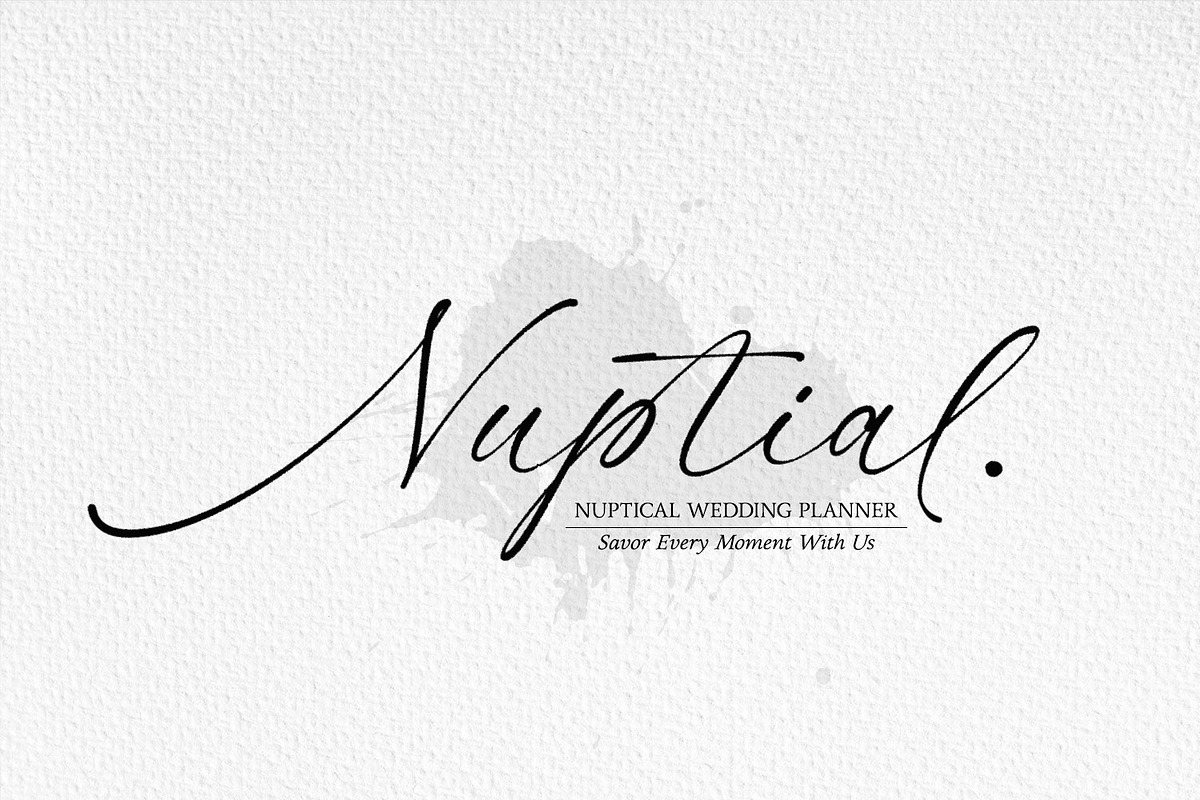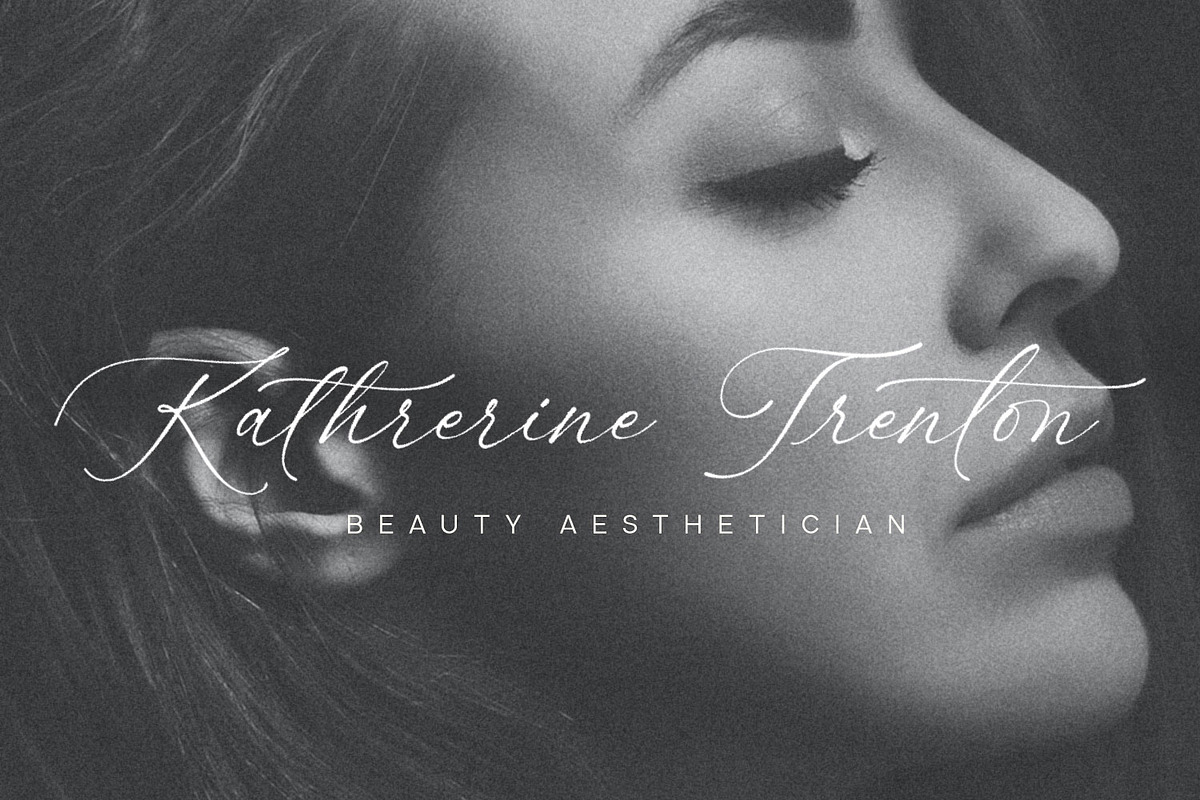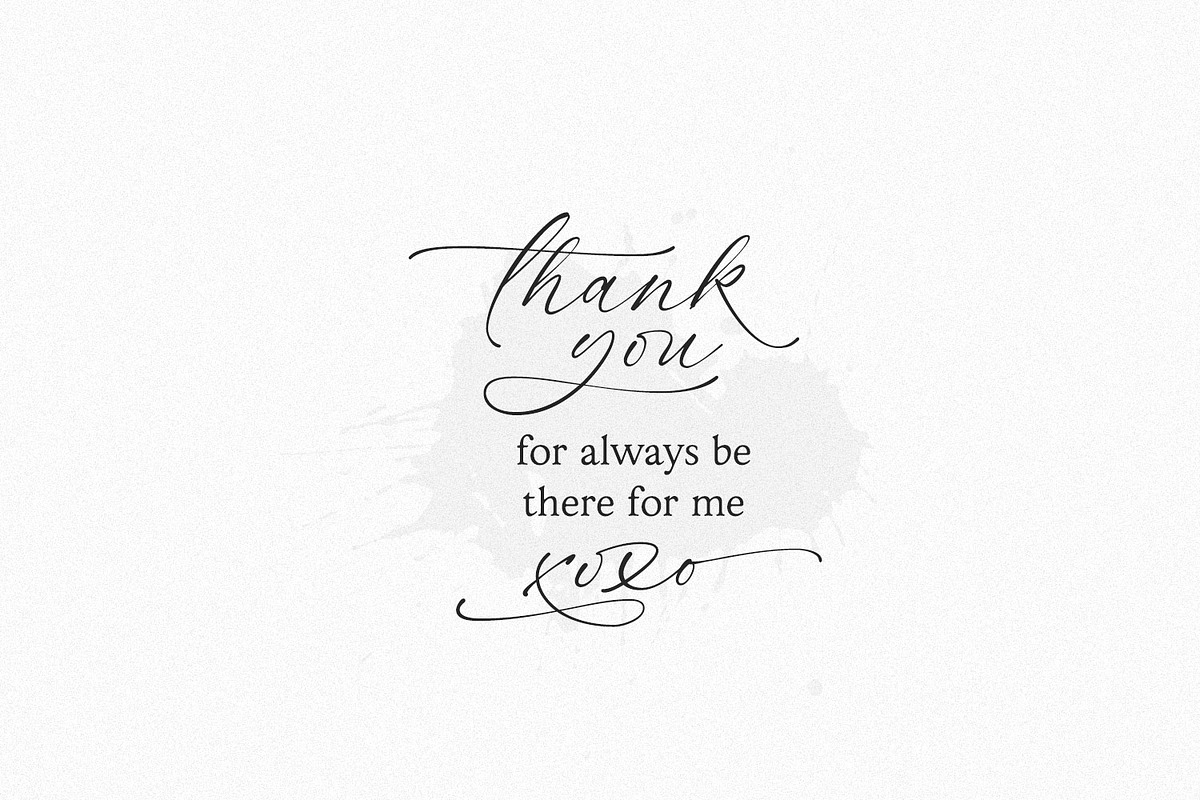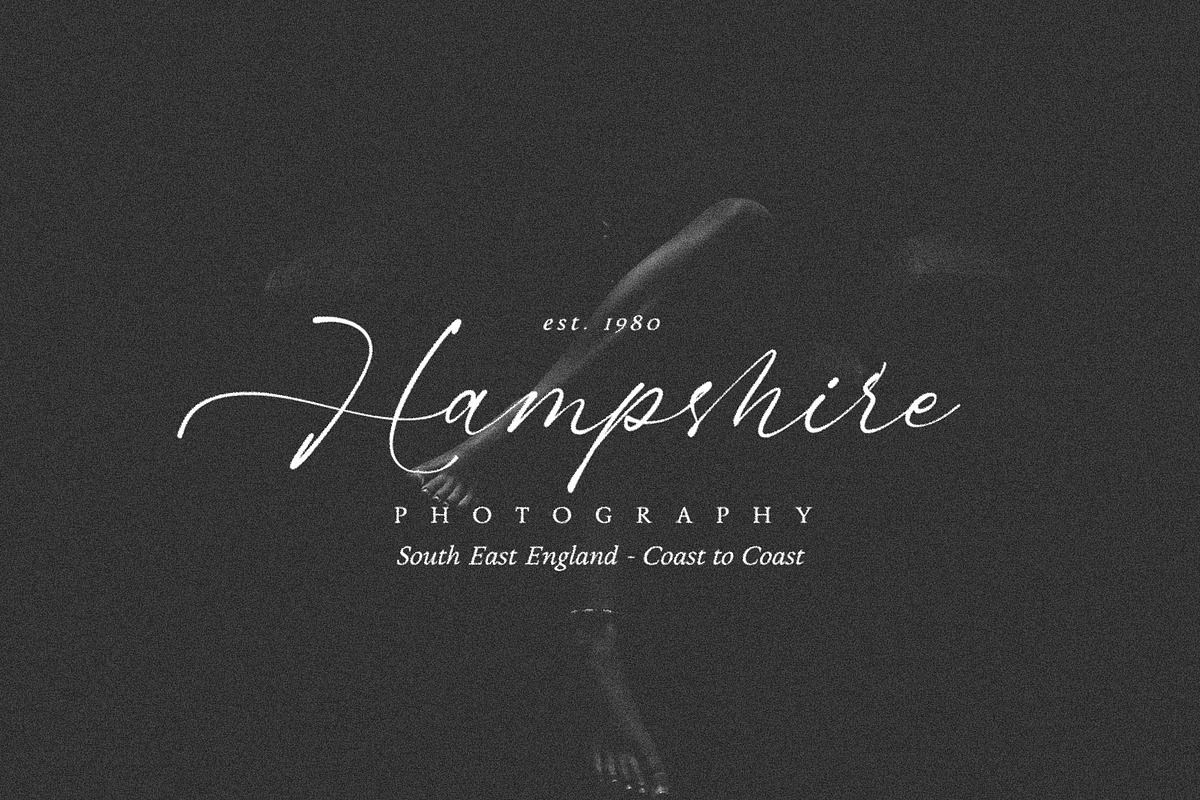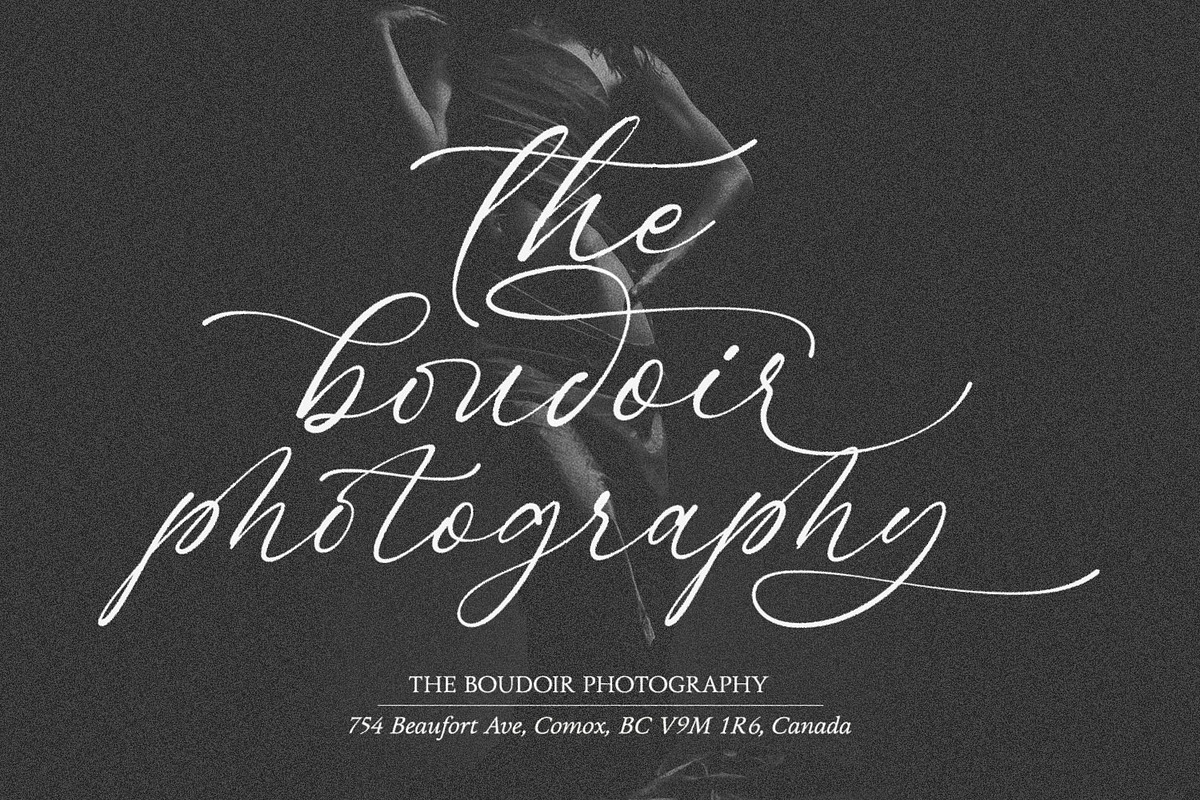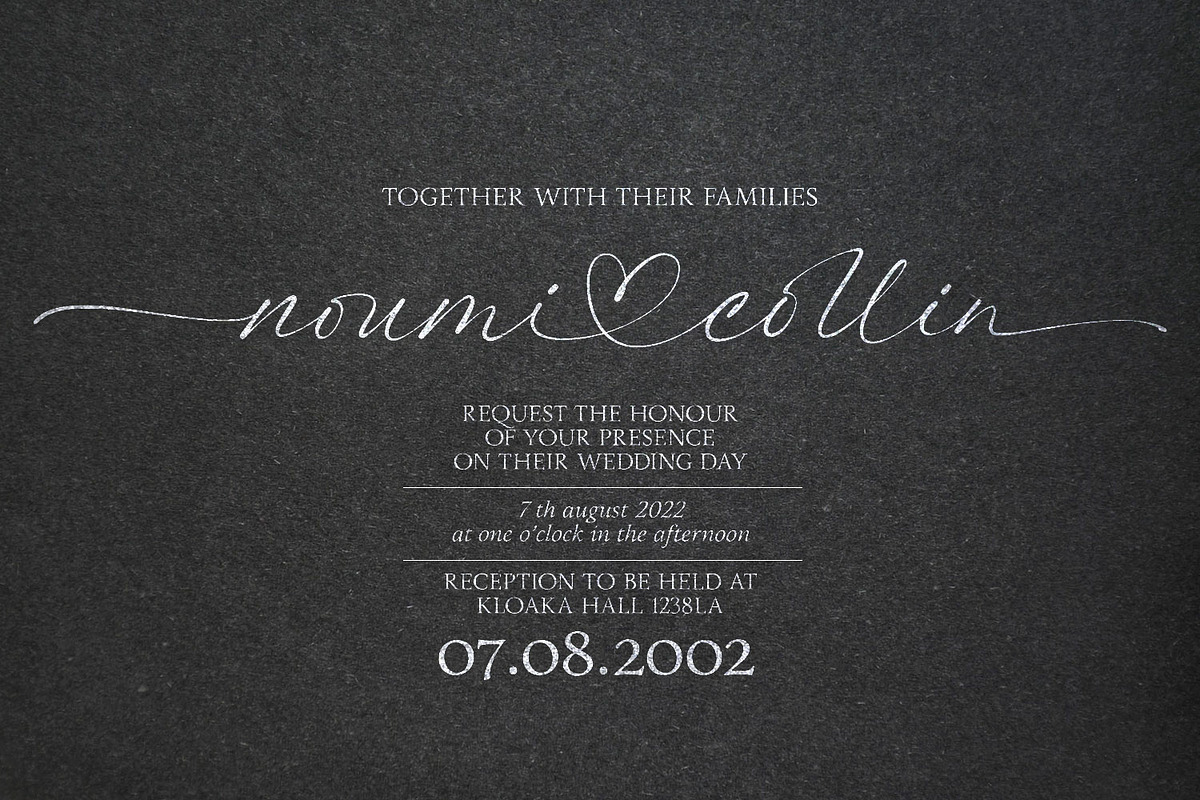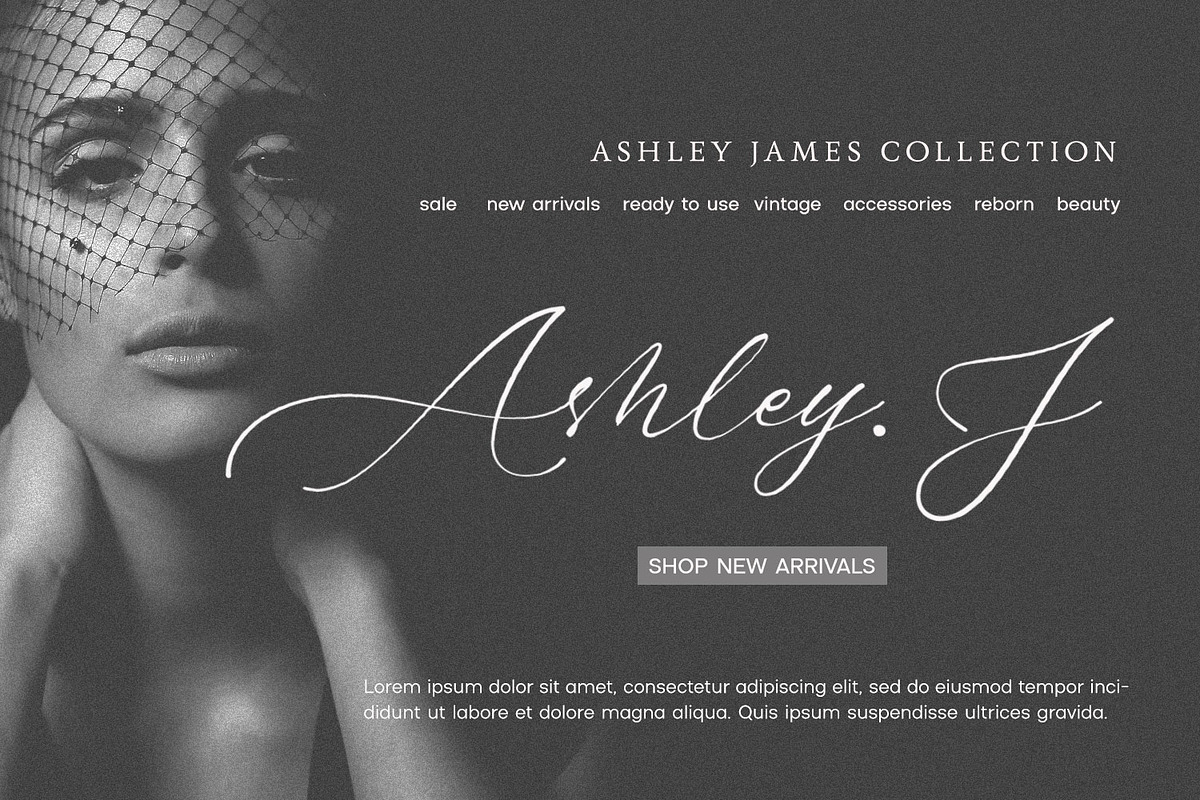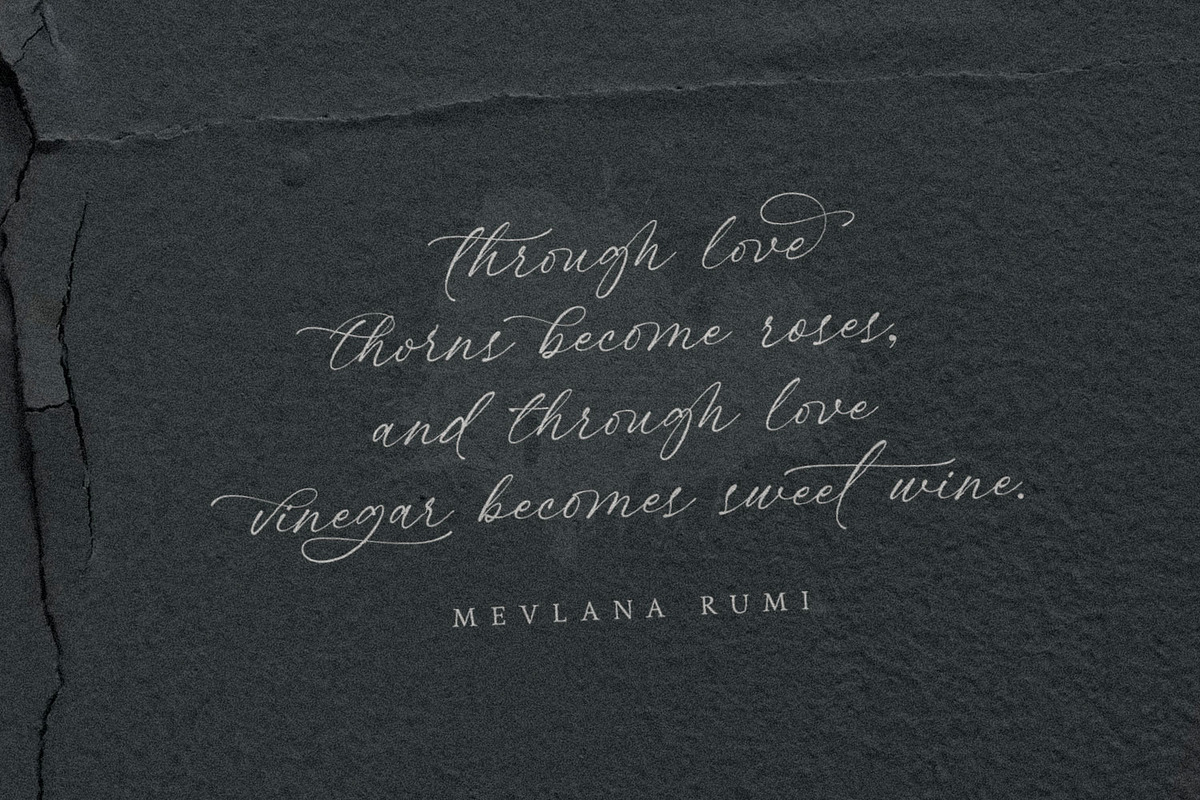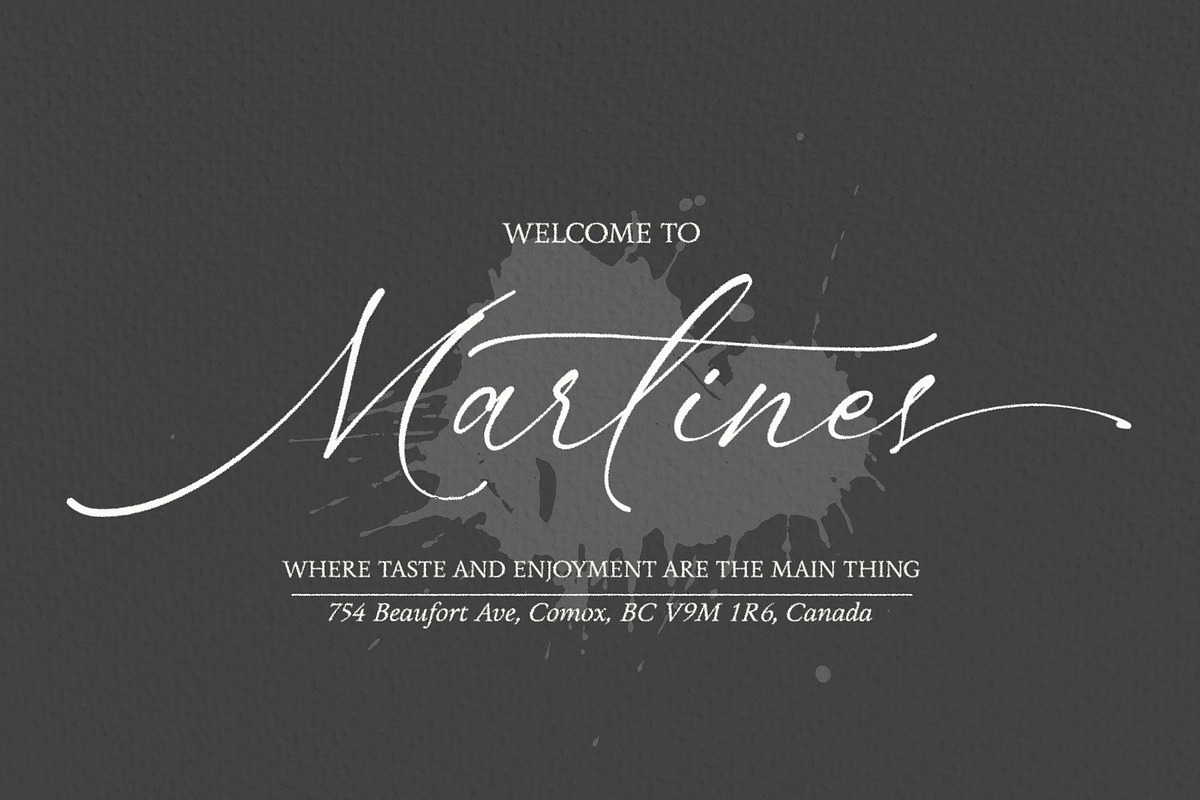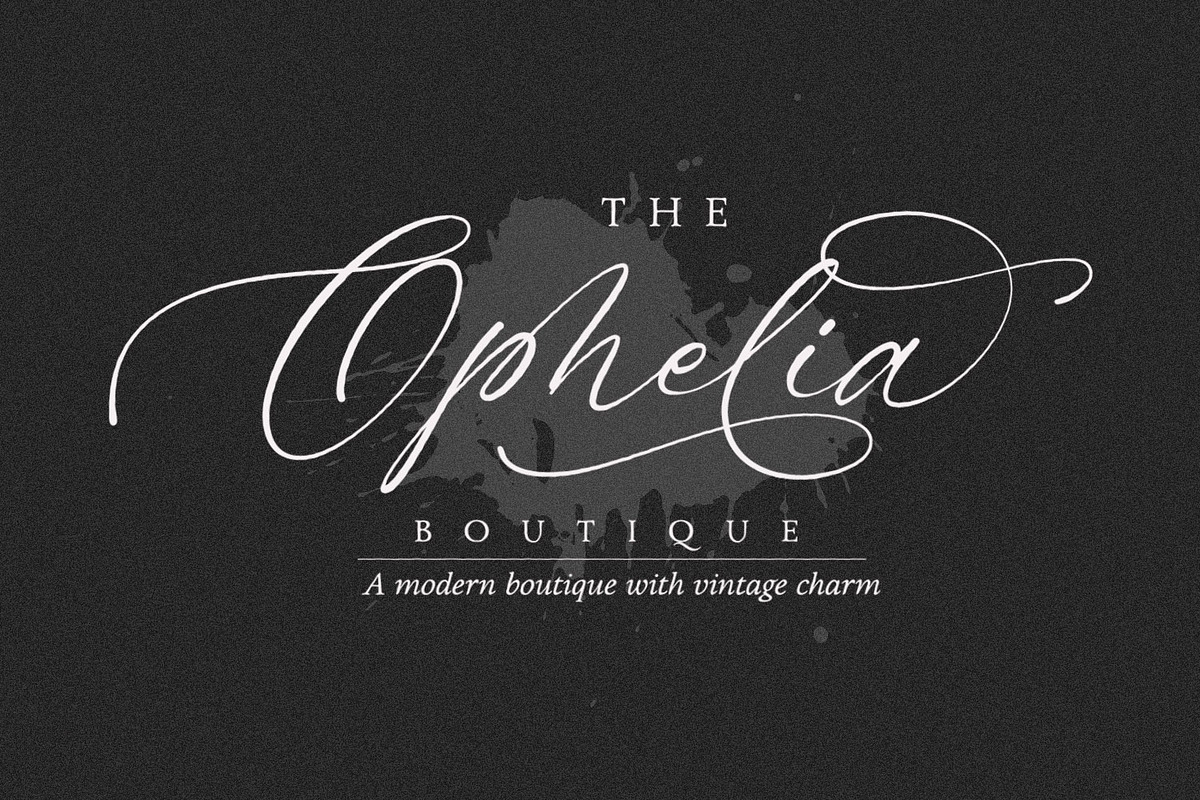
Maryland Brawlmer
Maryland Bawlmer is a modern and luxurious calligraphy with a natural look. perfect for wedding invitations, calligraphy logos for branding, elegant websites, personalized gifts, social media posts, photography and more!
Featuring 81 ligatures, 7 Alternate Set Styles (SS01-SS07) and Supports Western European, Central/Eastern European, Baltic, Turkish, Romanian Language
Elegant, modern, luxurious, stylish and a natural touch blended in Maryland Bawlmer